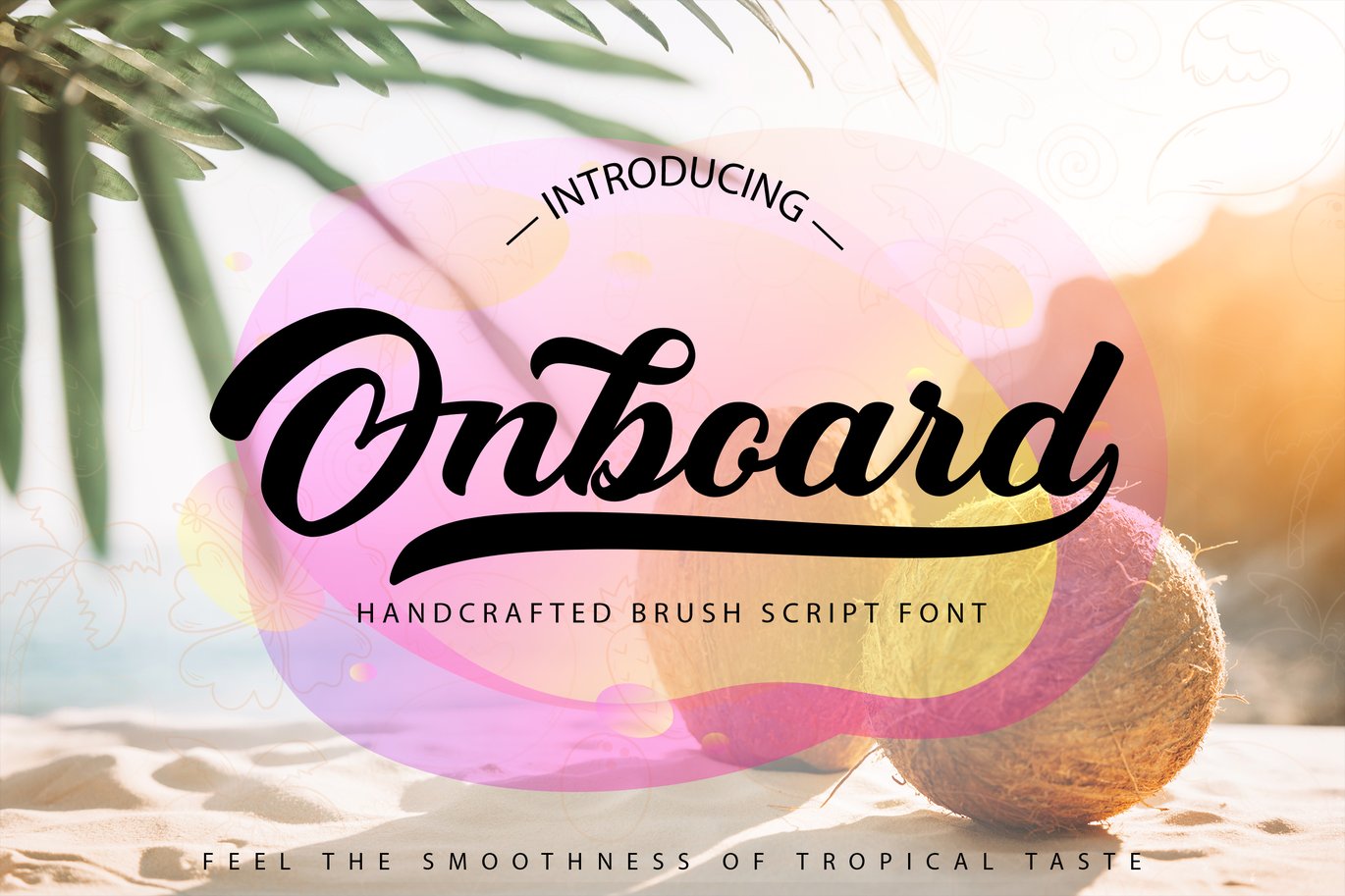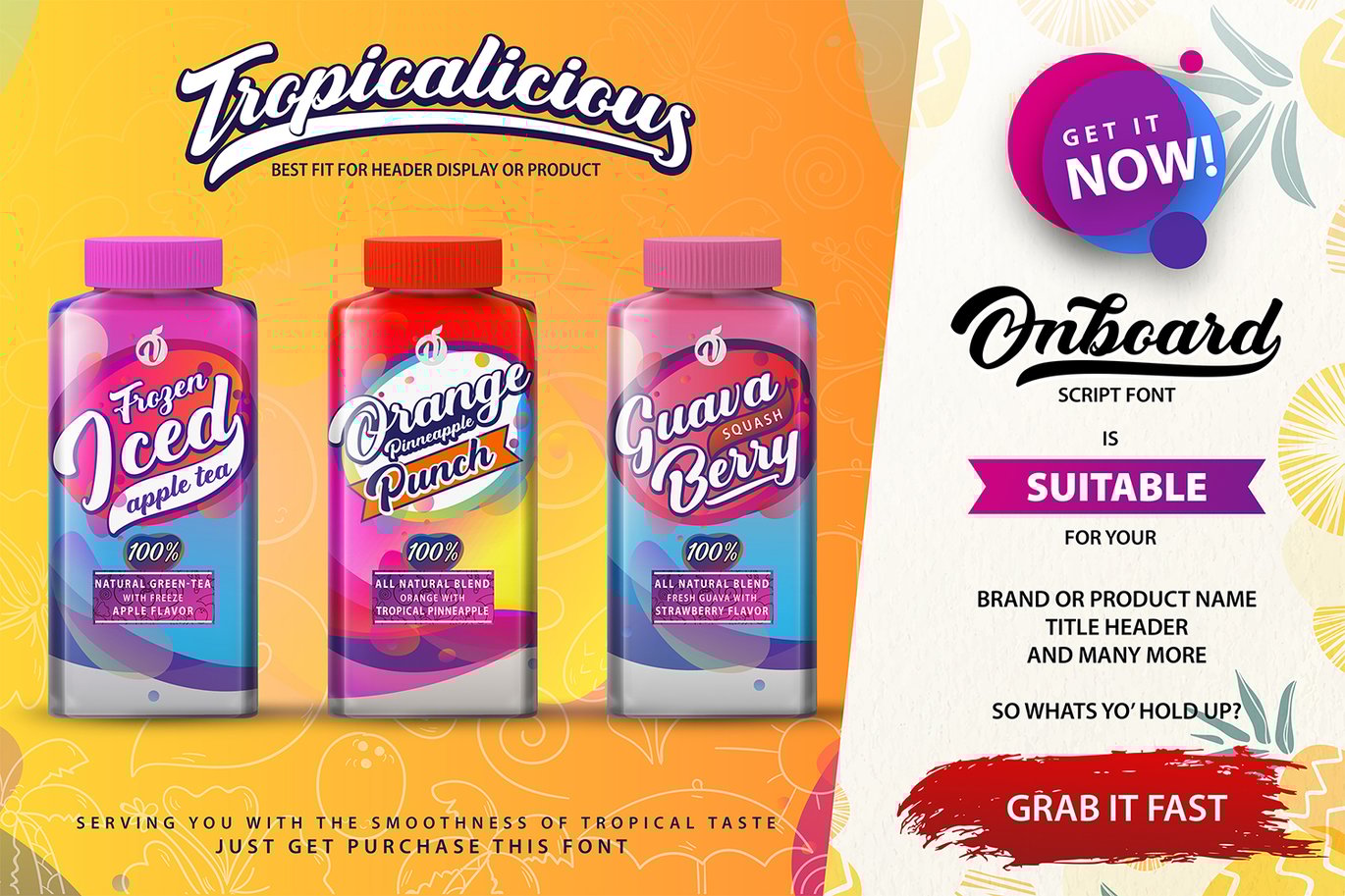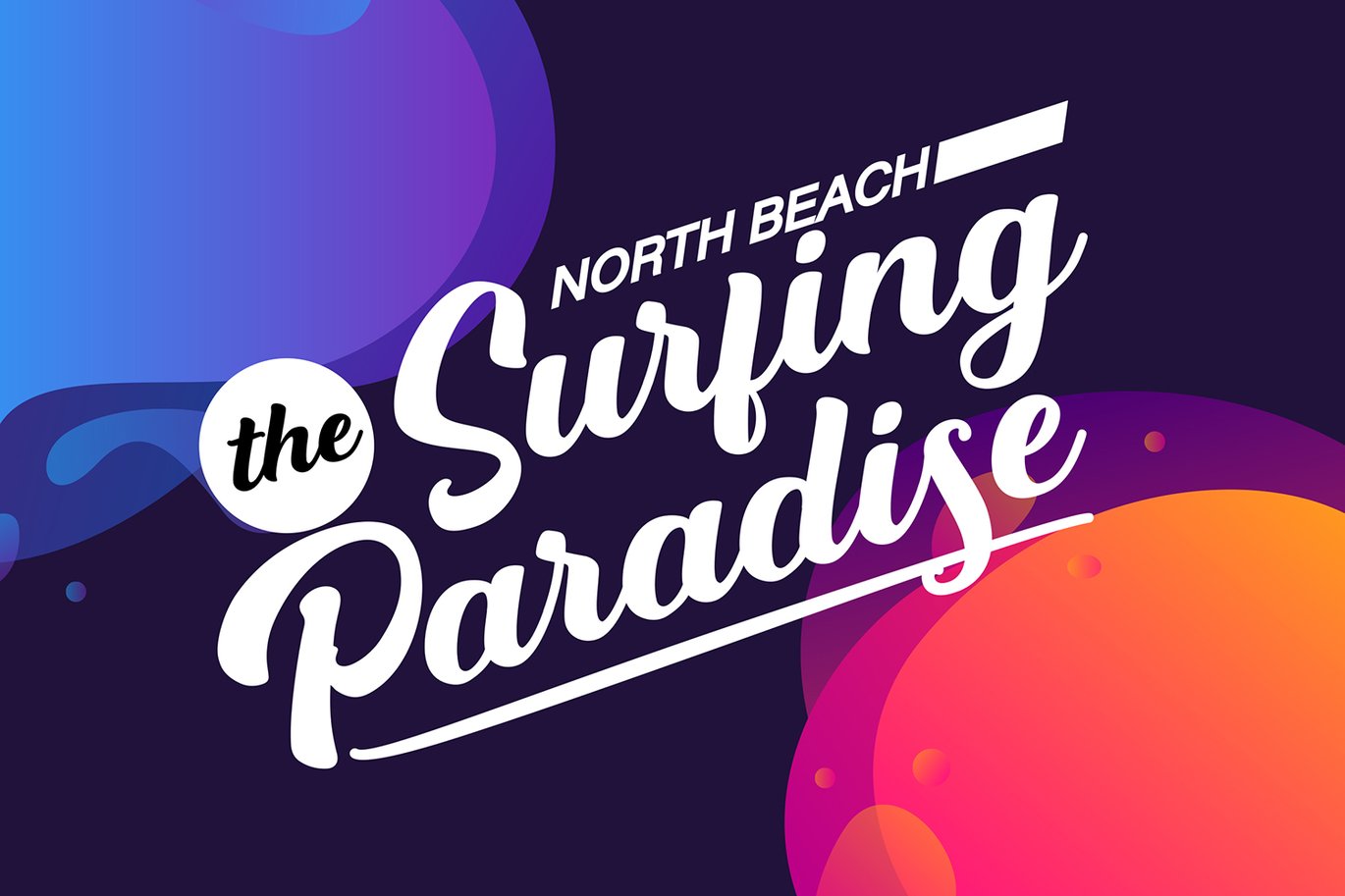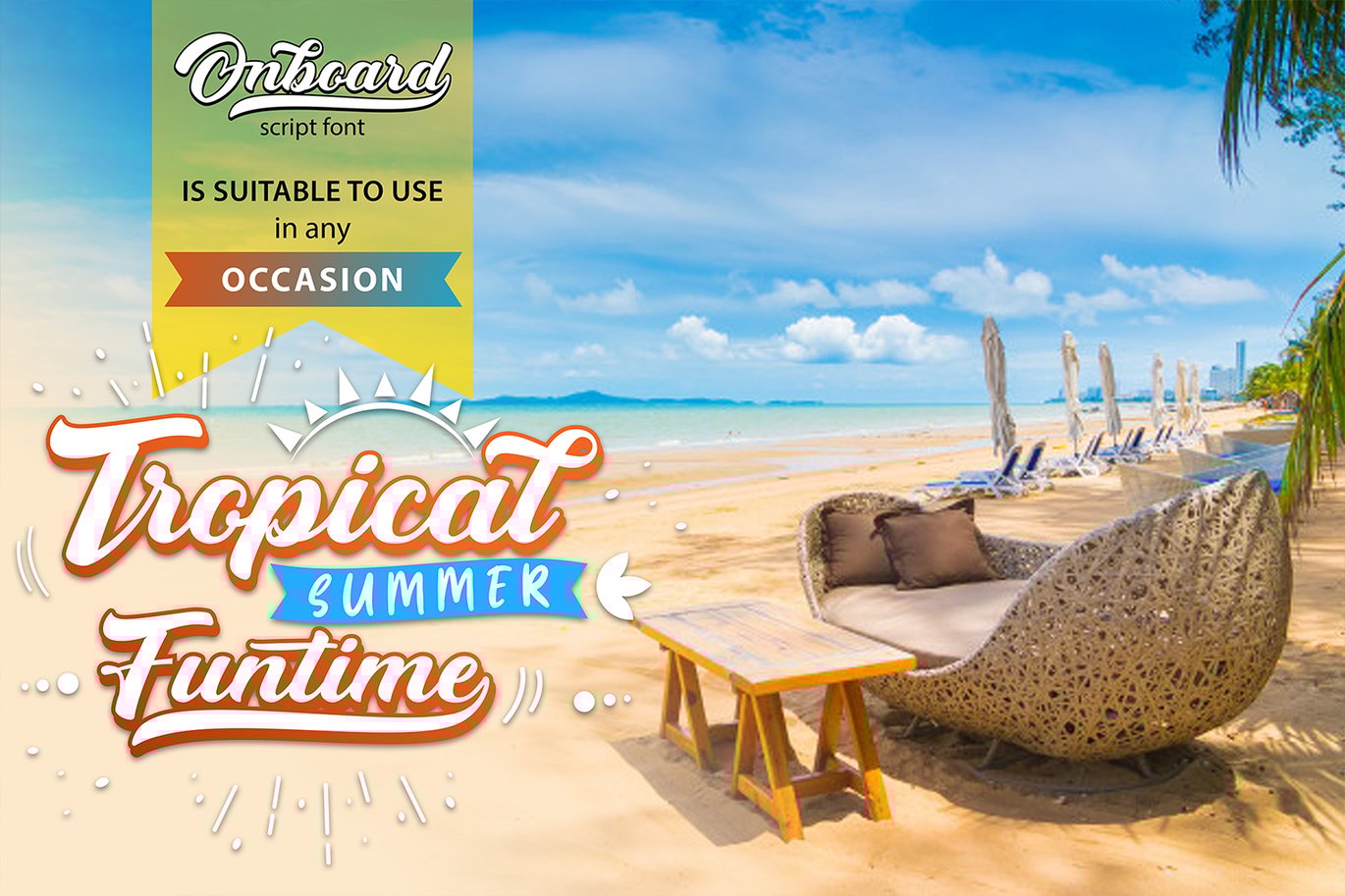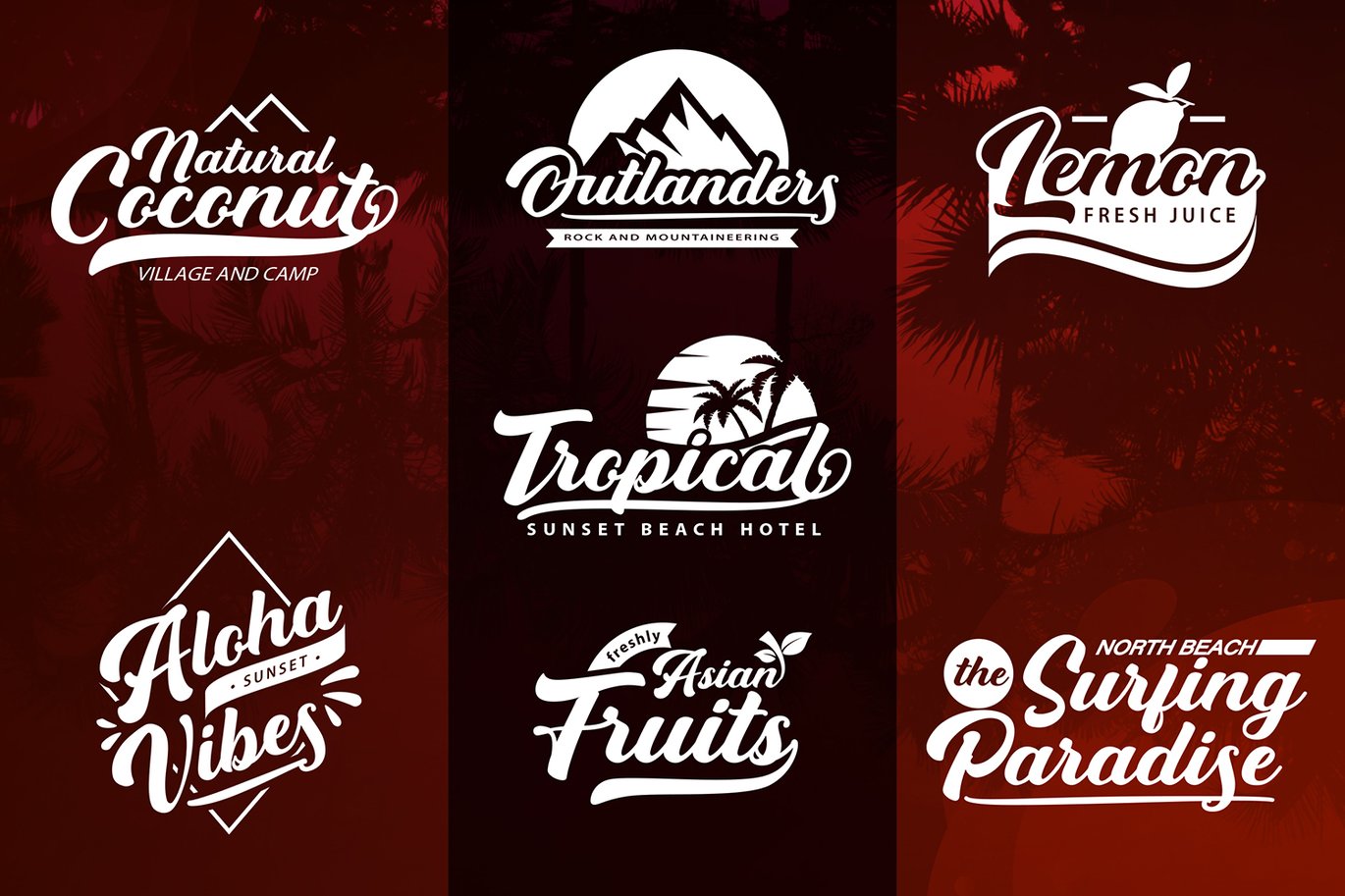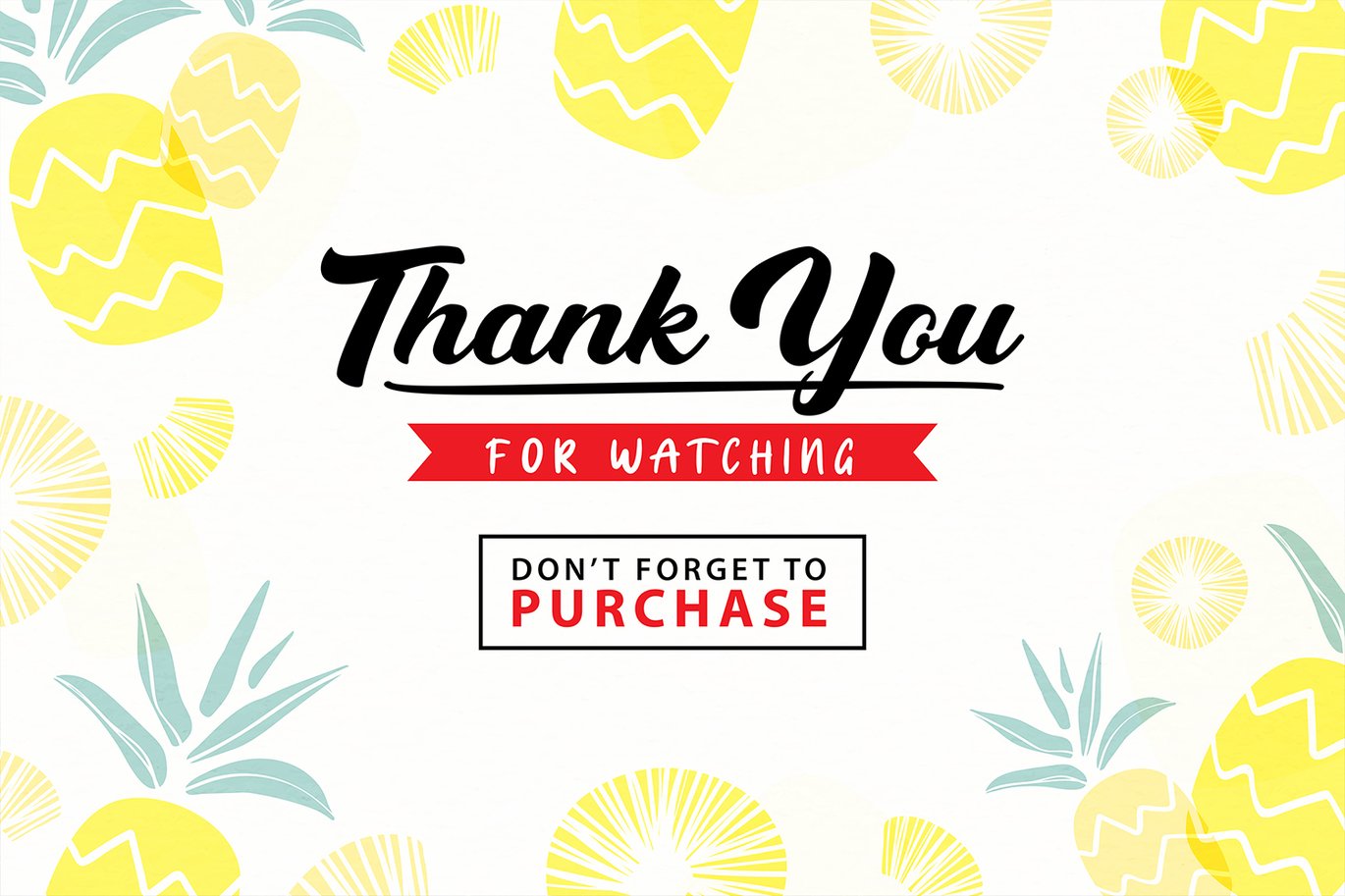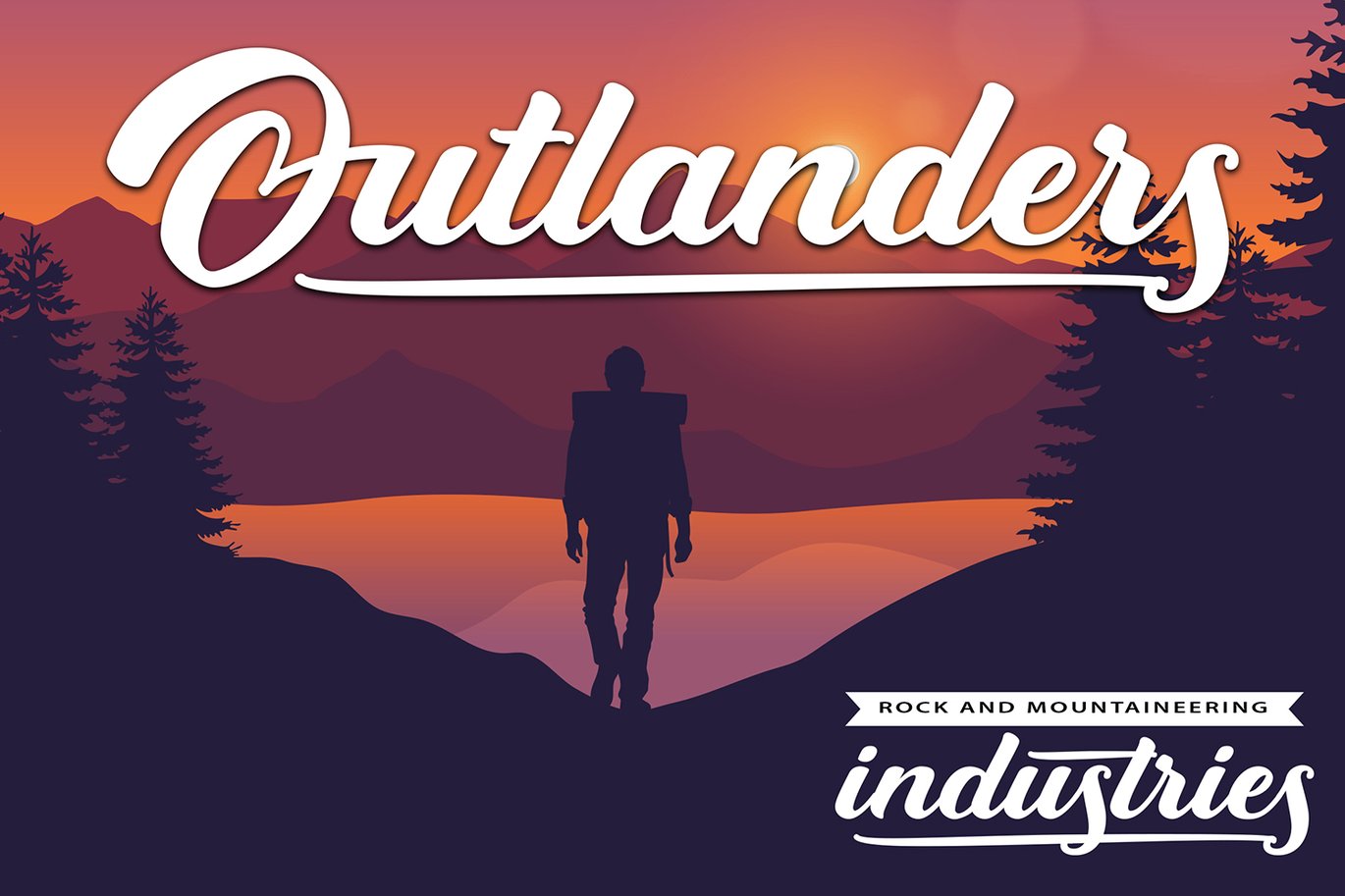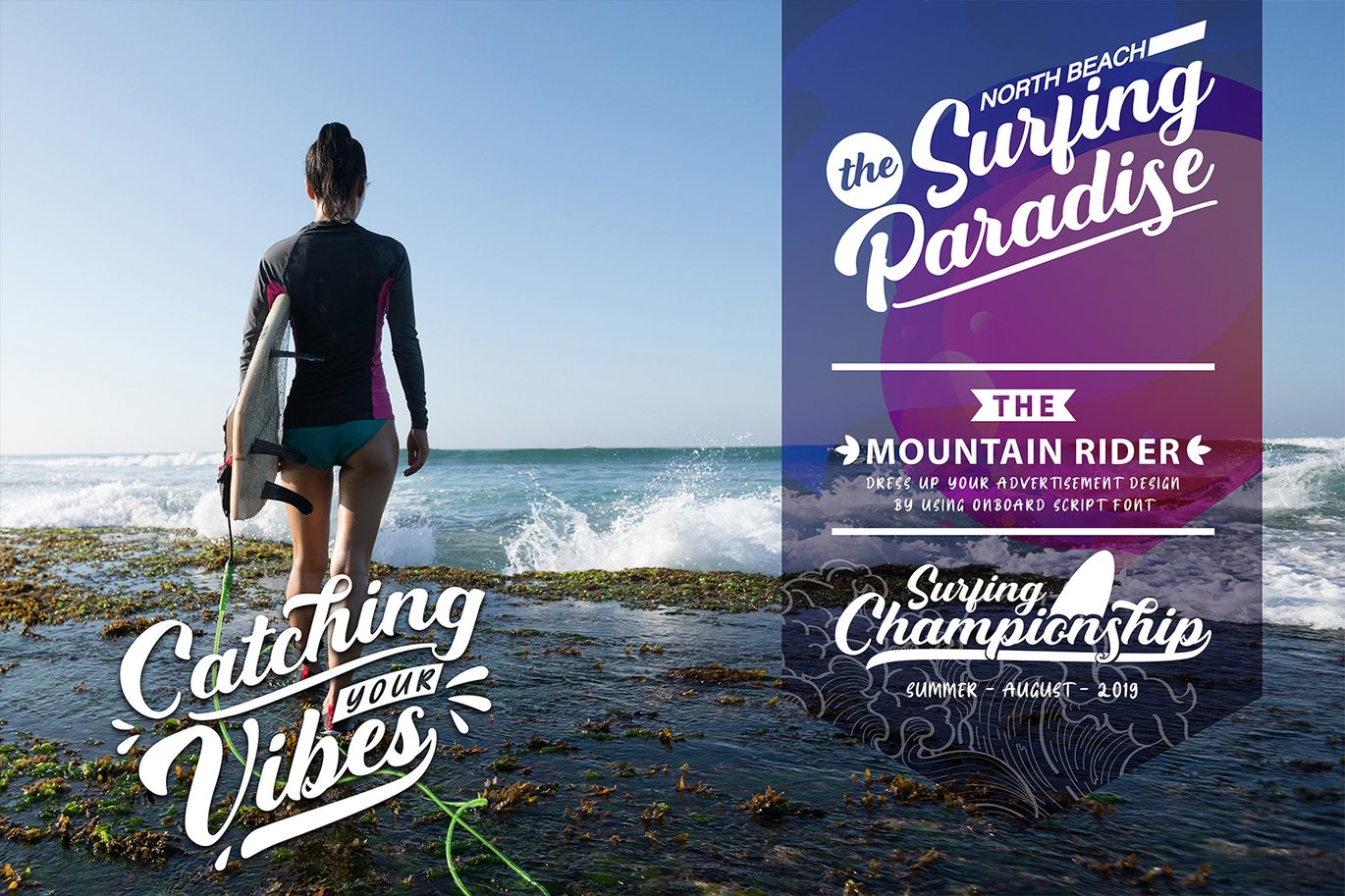
Onboard | Smooth Script Font
Onboard | Smooth Script Font with a calligraphy style, So beautiful on invitation like greeting cards, branding materials, business cards, quotes, posters, and more!
The alternative characters were divided into several features such as Stylistic Sets, Stylistic Alternates, Contextual Alternate, SWASH and Ligature. The Open Type features can be accessed by using Open Type savvy programs such as Adobe Illustrator, Adobe InDesign, Adobe Photoshop Corel Draw X version, And Microsoft Word. And this Font has given PUA unicode (specially coded fonts). so that all the alternate characters can easily be accessed in full
- Hundred of glyphs